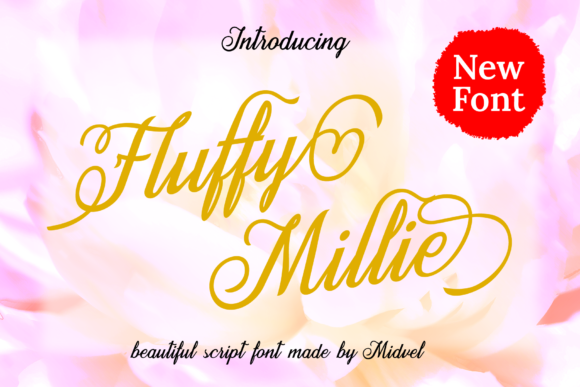
In the realm of script fonts, where artistry meets functionality, there exists a gem named Fluffy Millie Font, a creation of Midvel that exudes charm and elegance in equal measure. This font is not merely a collection of characters; it's an invitation to a world of creativity and sophistication.
With its graceful curves and playful strokes, Fluffy Millie Font evokes a sense of whimsy and romance. It's a font that whispers sweet nothings on wedding invitations and thank-you cards, adding a touch of heartfelt charm to your expressions of gratitude. Its presence graces quotes and greeting cards, imbuing them with an air of heartfelt sentiment.
But Fluffy Millie Font's allure extends beyond personal correspondence. It's a font that commands attention in the world of design. Its presence on logos and business cards exudes professionalism and creativity, leaving a lasting impression on clients and colleagues alike.
What sets Fluffy Millie Font apart is its versatility. It's a font that effortlessly adapts to a myriad of design projects. Whether you're crafting elegant wedding invitations or playful children's storybooks, Fluffy Millie Font rises to the occasion, adding its unique charm to every project it graces.
To ensure ease of use, Fluffy Millie Font is PUA encoded, granting you effortless access to all of its glyphs and swashes. Unleash your creativity without technical hindrances and explore the boundless possibilities that await you.
Choosing Fluffy Millie Font is not just a design decision; it's an investment in aesthetics and emotional resonance. Its ability to evoke charm, elegance, and professionalism makes it an invaluable asset for designers, crafters, and businesses alike. With Fluffy Millie Font, your creative expressions will blossom into masterpieces that capture hearts and leave a lasting impression.